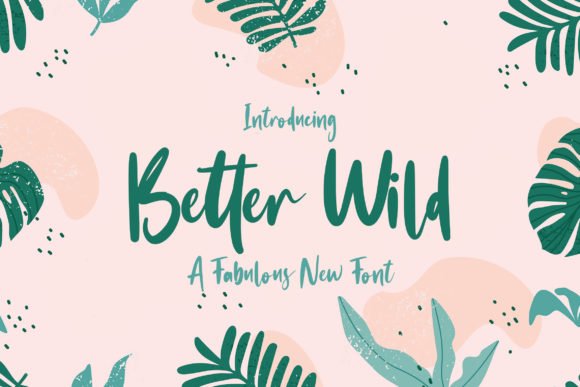
Introduction to Better Wild Font
Better Wild is a modern, delicate and adaptable paint-brushed font.
Fall in love with its authentic feel and use it to create lovely wedding invitations, beautiful stationary art, eye-catching social media posts, and cute greeting cards .